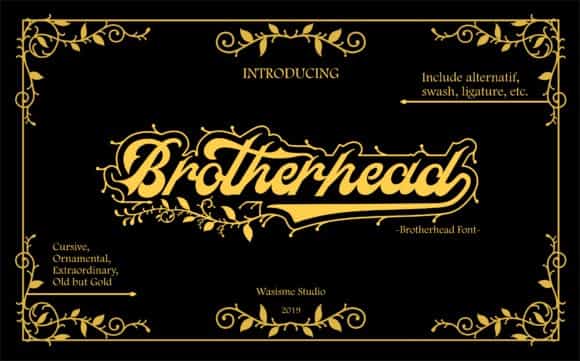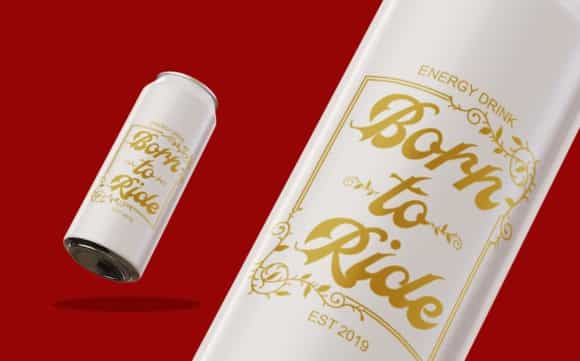
Discover Brotherhead Script Font, part of the Calligraphy Blackletter collection—a versatile and unique font perfect for adding a personal touch to your projects. Download it for free and enjoy crafting designs with style, from invitations to social media posts. This font is available exclusively for personal use, giving you the freedom to create without limits. Unlock your creativity with Brotherhead Script Font today!
The Brotherhead font has a variety of alternative for each lowercase letter. Let these fonts be among the best in your Font Library. It is enjoyable to use because every word can be altered as you desire.